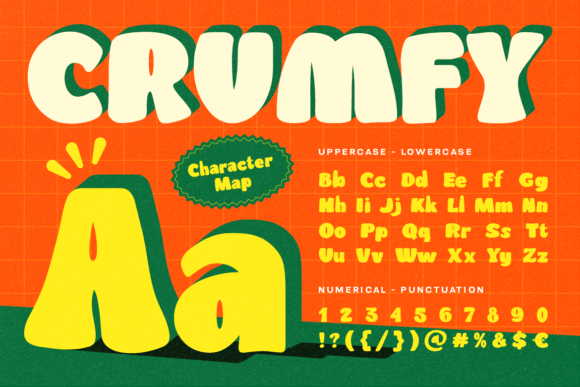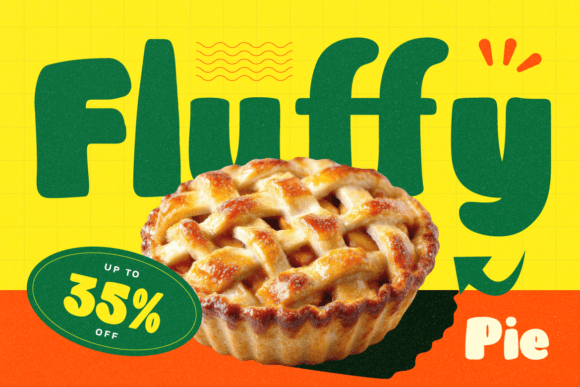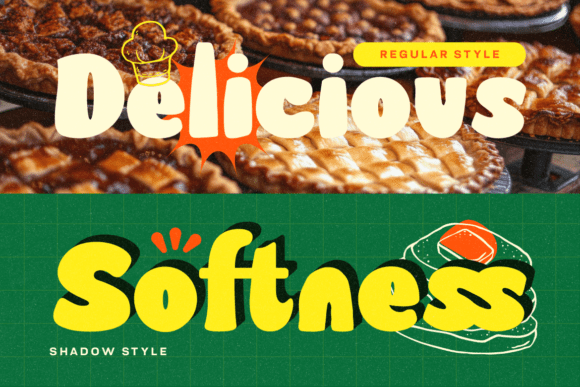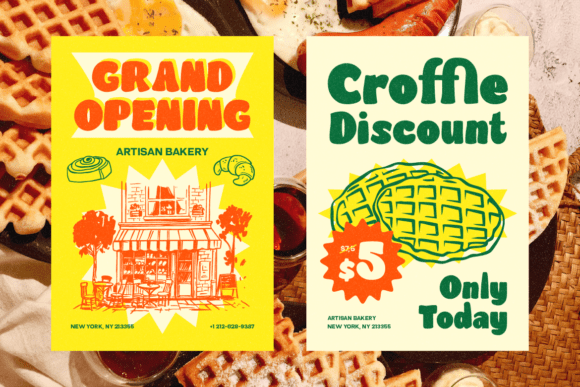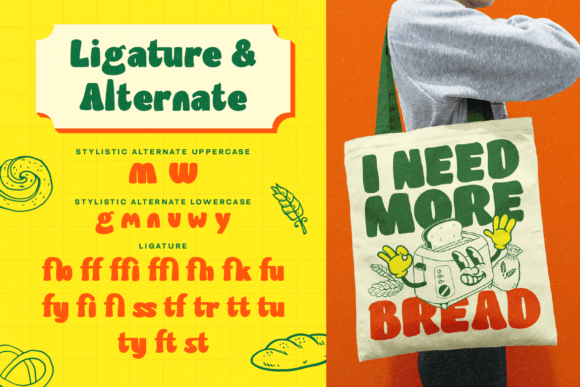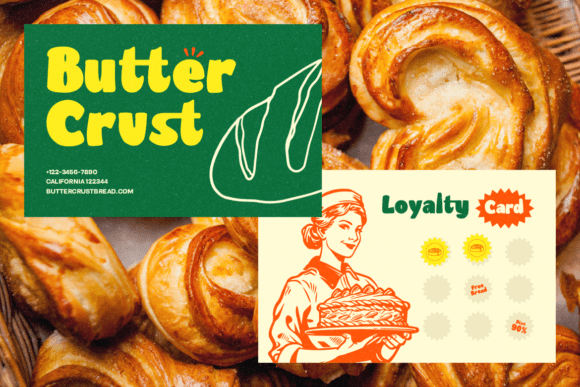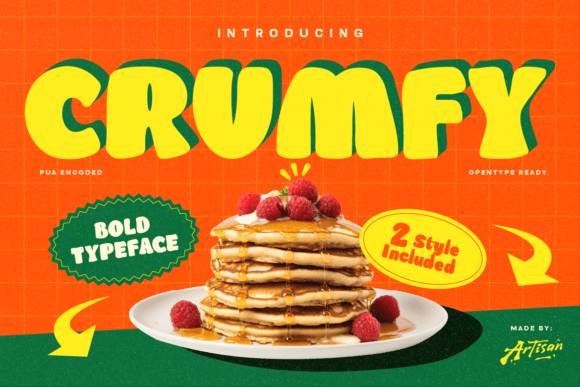
Crumfy Font: The Sweetest Addition to Your Design Toolbox
Are you looking for a font that can add a touch of warmth, friendliness, and playfulness to your designs? Look no further than Crumfy, a bold, chunky display font that’s sure to satisfy your creative cravings. Inspired by the cozy world of artisan bakeries, warm pastries, and retro food packaging, Crumfy brings a cheerful and appetizing feel to any design.
The Inspiration Behind Crumfy
Crumfy’s design is rooted in the nostalgia of traditional bakeries and food packaging. The font’s thick curves and rounded shapes evoke the feeling of freshly baked goods and the warmth of a cozy bakery. The result is a typeface that looks friendly, fun, and full of character – perfect for designs that need a sweet and standout touch.
Key Features of Crumfy
Crumfy is more than just a beautiful font – it’s also highly versatile and functional. Here are some of its key features:
• Two styles: Crumfy comes in two styles: Regular and Shadow. This gives you the flexibility to create layered, dimensional typography that adds depth and interest to your designs.
• Ligatures and stylistic alternates: Crumfy includes ligatures and stylistic alternates, making your text look more natural and playful.
• Multilingual support: Crumfy supports multilingual characters, so you can use it for international projects with confidence.
• Comprehensive character set: Crumfy includes a full A-Z set (uppercase and lowercase), numbers, punctuation, alternates, and ligatures.
Perfect Use Cases for Crumfy
Crumfy is a highly versatile font that can be used in a wide range of design applications. Here are some of the perfect use cases for Crumfy:
• Bakery & café branding: Crumfy is a natural fit for bakery and café branding, adding a warm and inviting touch to logos, menus, and marketing materials.
• Food packaging: Crumfy’s playful and appetizing feel makes it perfect for food packaging design, from sweet treats to savory delights.
• Posters & flyers: Crumfy’s bold and chunky design makes it perfect for eye-catching posters and flyers that need to grab attention.
• Social media graphics: Crumfy’s friendly and playful personality shines through in social media graphics, from Instagram posts to Facebook headers.
• Logo design: Crumfy’s unique and memorable design makes it perfect for logos that need to stand out from the crowd.
• Merchandise: Crumfy is a great choice for merchandise design, from tote bags and stickers to labels and more.
• Retro or playful brand identity: Crumfy’s vintage-inspired design makes it perfect for brands that want to evoke a sense of nostalgia and playfulness.
Why Designers and Crafters Love Crumfy
Crumfy has quickly become a favorite among designers and crafters, and it’s easy to see why. Here are just a few reasons why Crumfy is a top choice:
• Easy to read: Despite its bold and chunky design, Crumfy is surprisingly easy to read – making it perfect for designs that need to communicate a message quickly and clearly.
• Highly versatile: Crumfy’s range of features and styles makes it a highly versatile font that can be used in a wide range of design applications.
• Unique and memorable: Crumfy’s unique and memorable design makes it perfect for brands that want to stand out from the crowd and establish a strong visual identity.